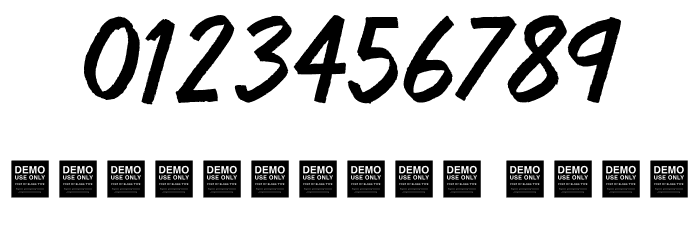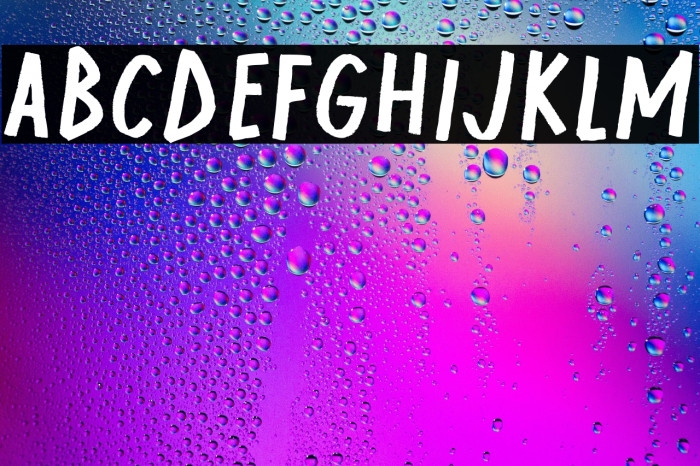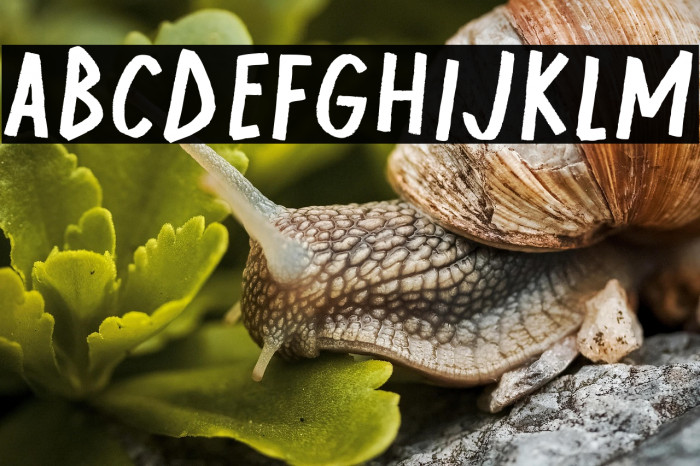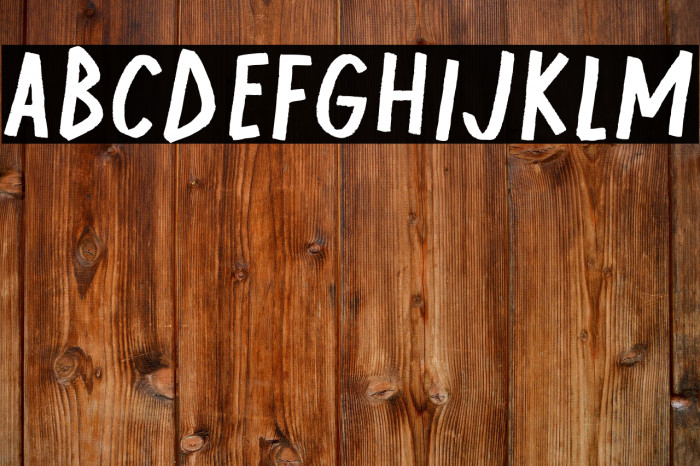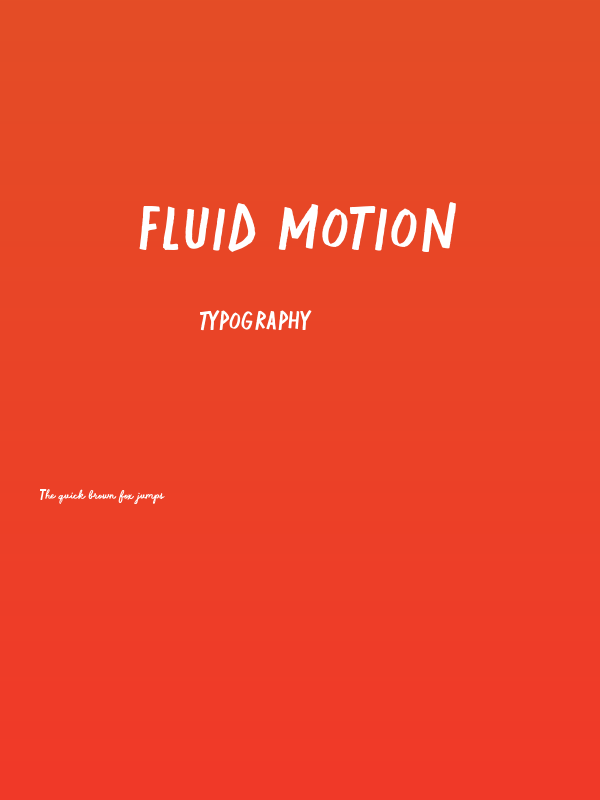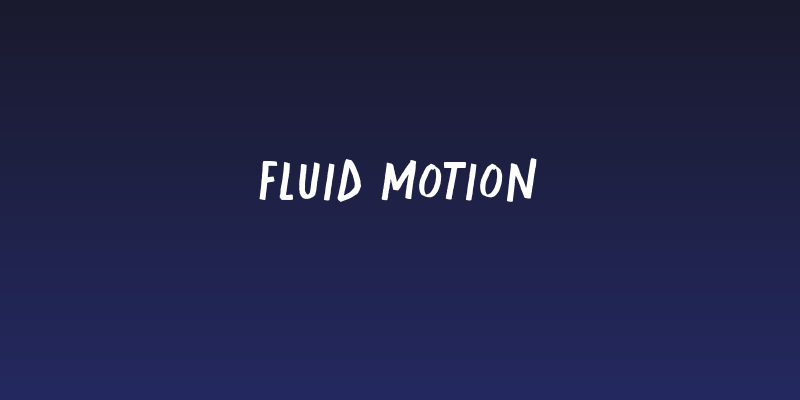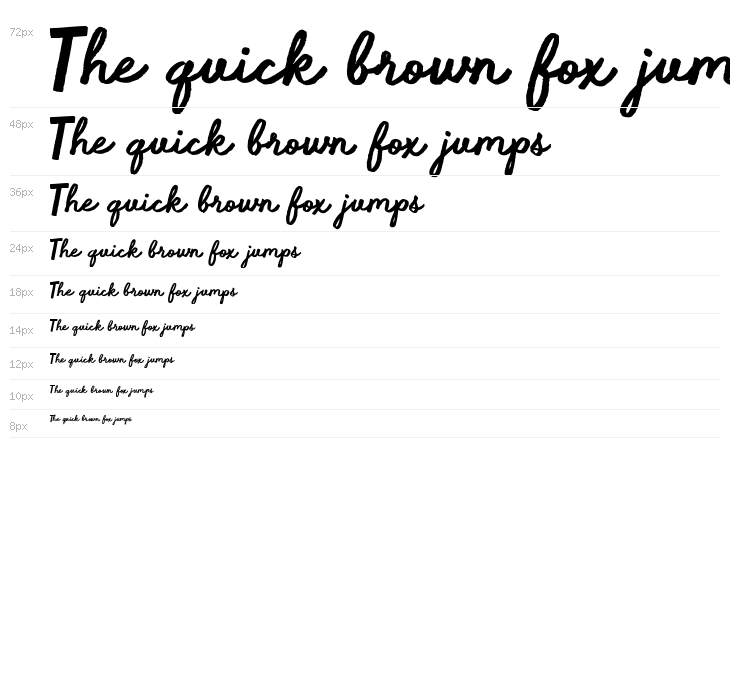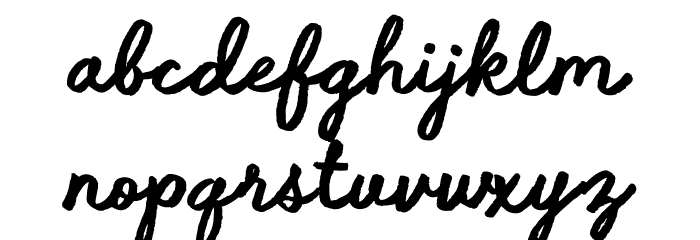
Fluid Motion Font
Fluid Motion Description
This font exhibits a dynamic and energetic style, characterized by its fluid and slightly irregular strokes that mimic the appearance of handwritten script. The uppercase letters are bold and assertive, while the lowercase letters maintain a more casual and flowing demeanor. The numbers are consistent with the overall style, offering a cohesive look. The font's unique charm is enhanced by its playful yet sophisticated appearance, making it suitable for creative projects that require a personal touch. The special characters are seamlessly integrated, maintaining the font's overall aesthetic.
| Proposed Projects | Ideal for branding, invitations, greeting cards, and creative design projects that require a personal and artistic touch. |